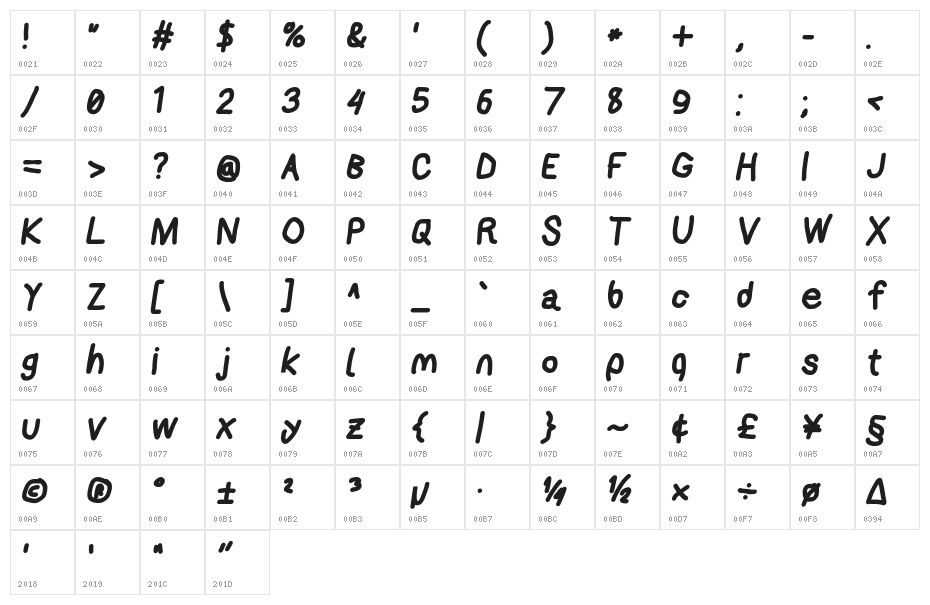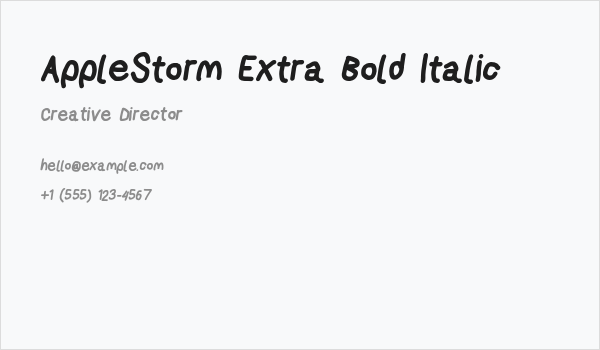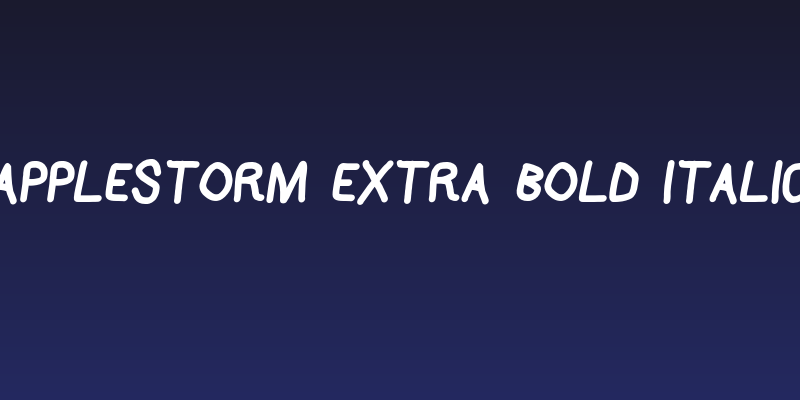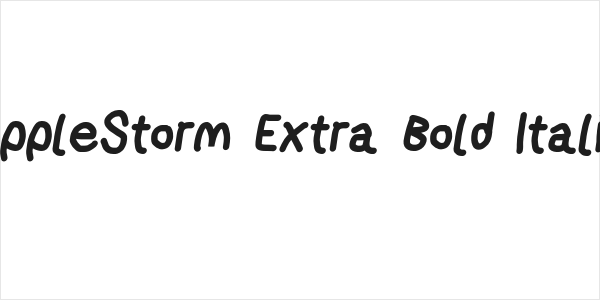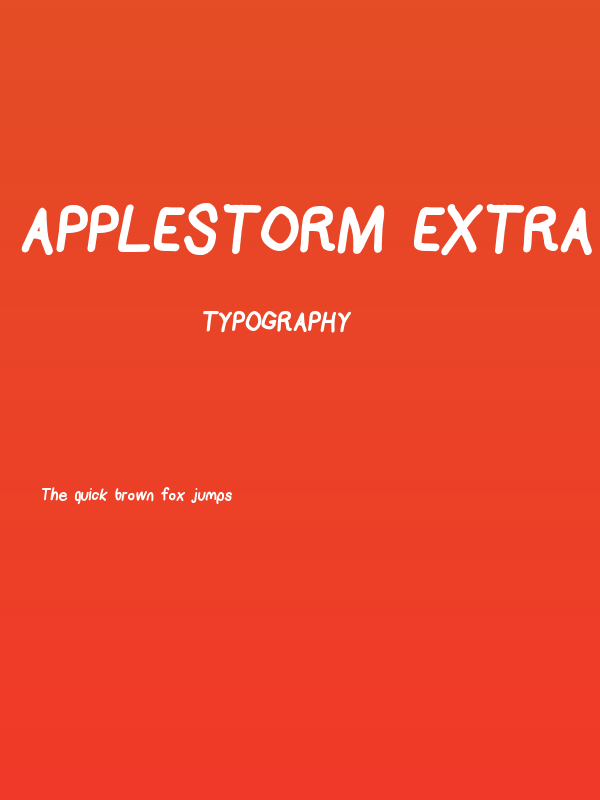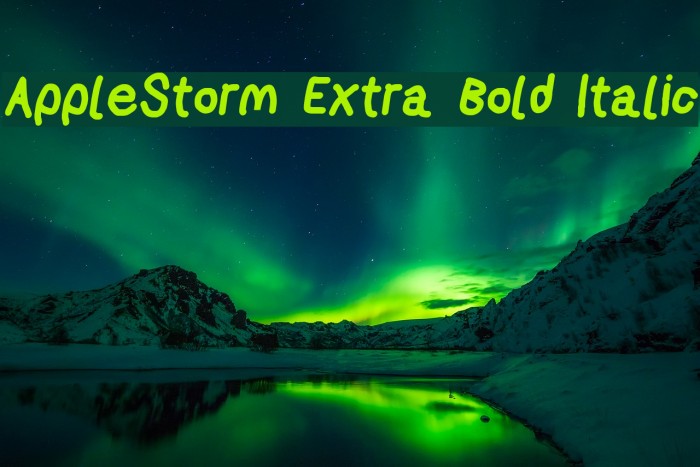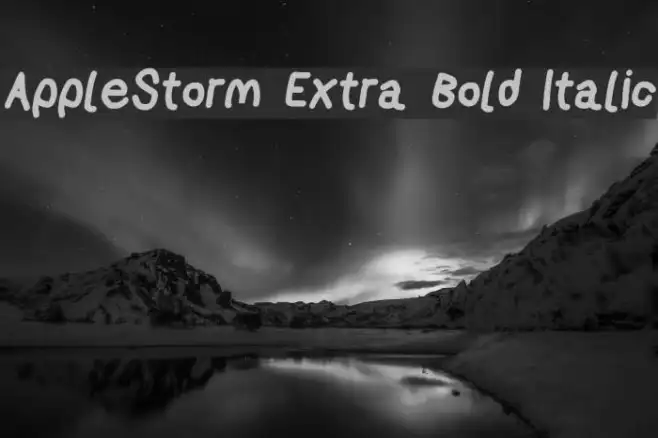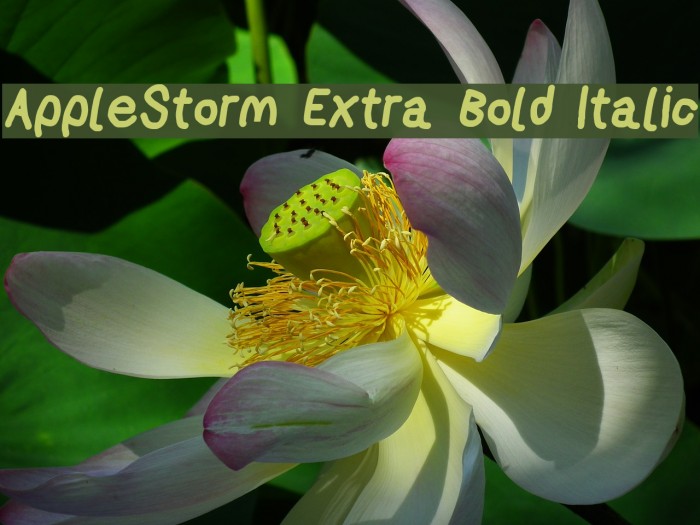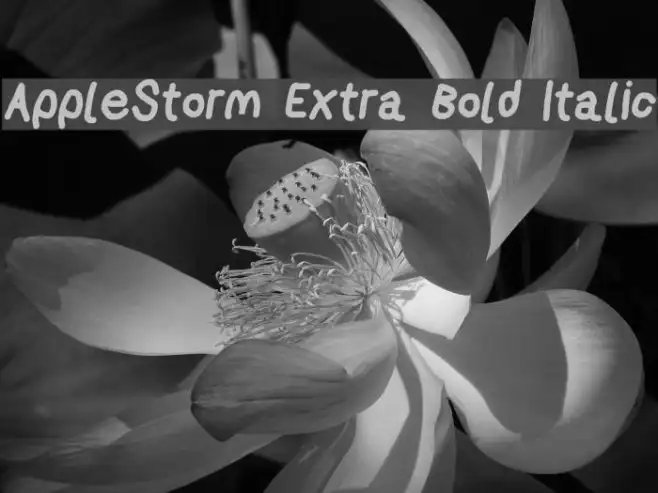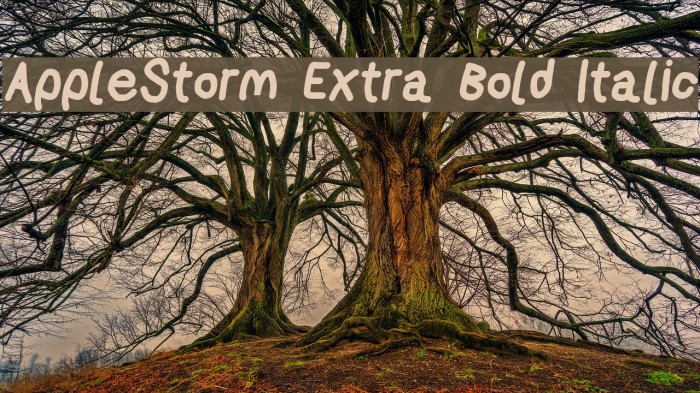
AppleStorm Extra Bold Italic Font
AppleStorm Extra Bold Italic Description
This font features a bold and playful handwritten style, characterized by its thick strokes and italicized form. The letters have a rounded, smooth appearance, giving them a friendly and approachable feel. The uppercase and lowercase letters maintain a consistent flow, while the numbers and special characters are designed to match the overall aesthetic. The font's exaggerated curves and slanted orientation add a dynamic and energetic vibe, making it suitable for creative and informal applications.
| Overall Style | Playful, Energetic |
| Proposed Projects | Ideal for children's books, playful branding, casual invitations, and creative posters. |